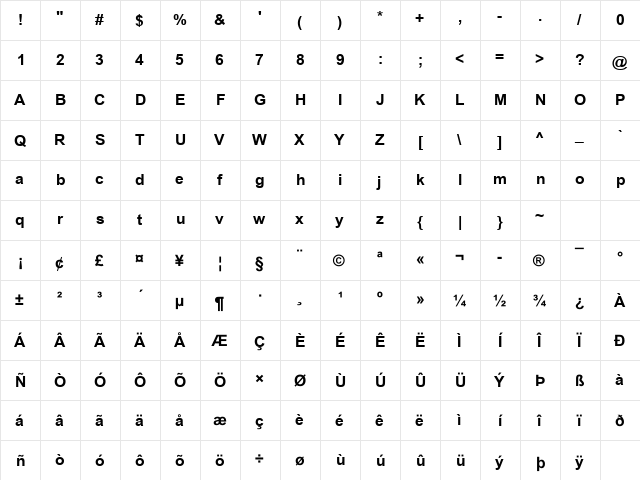
BrowalliaUPC Bold Font Preview
BrowalliaUPC Bold
BrowalliaUPC Bold Font Details
Design Context for BrowalliaUPC Typeface
BrowalliaUPC takes a measured approach to typography — its balanced proportions and neutral character make it a reliable workhorse for both digital and print work. The heavy weight commands attention and anchors typographic hierarchies.